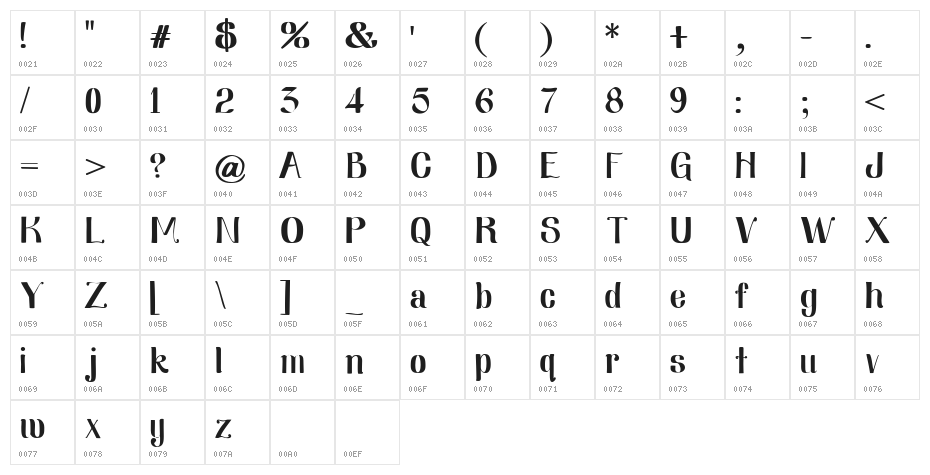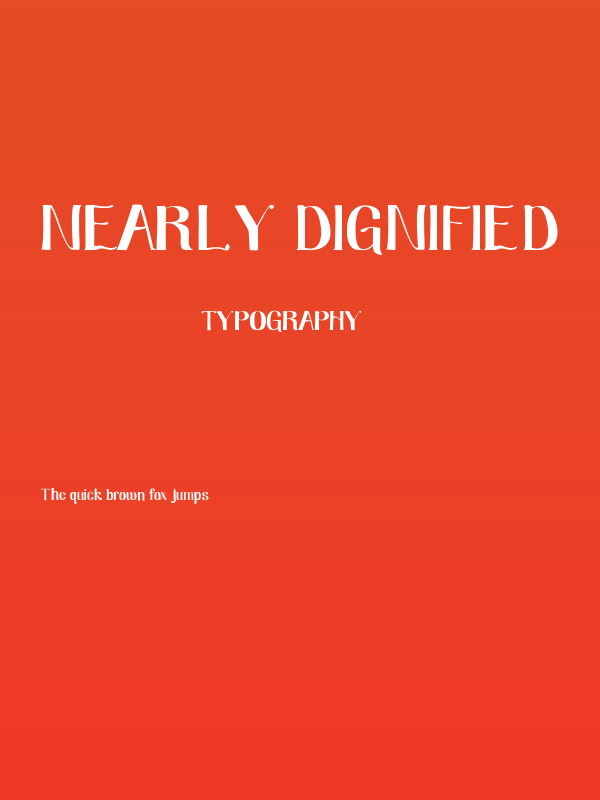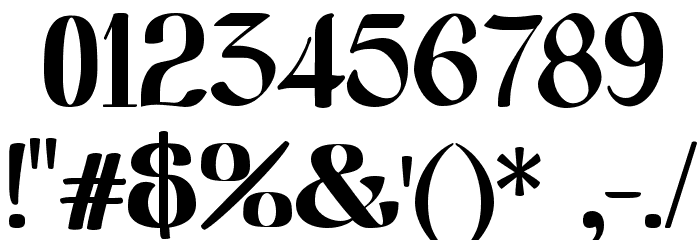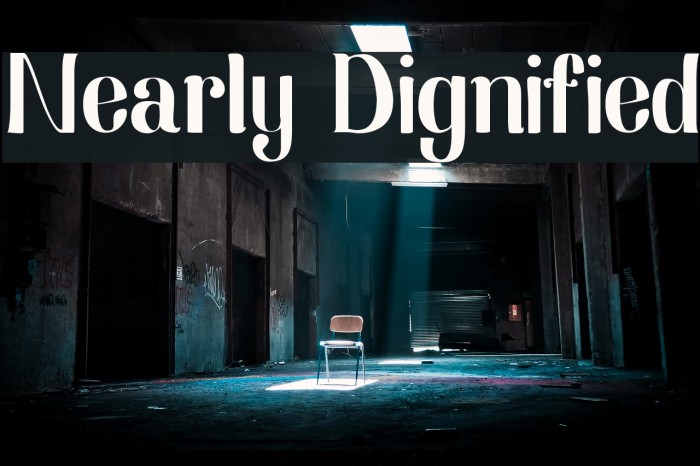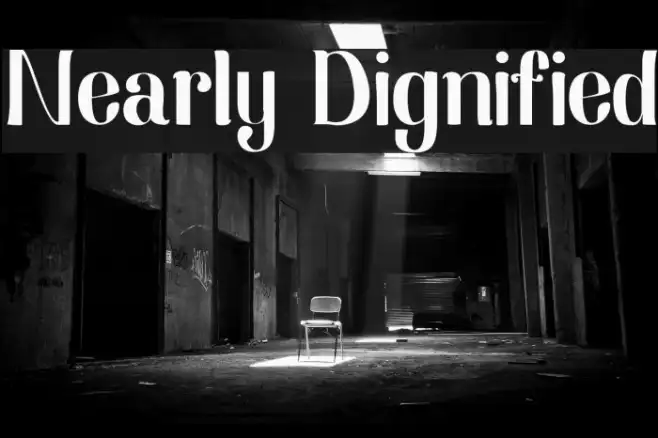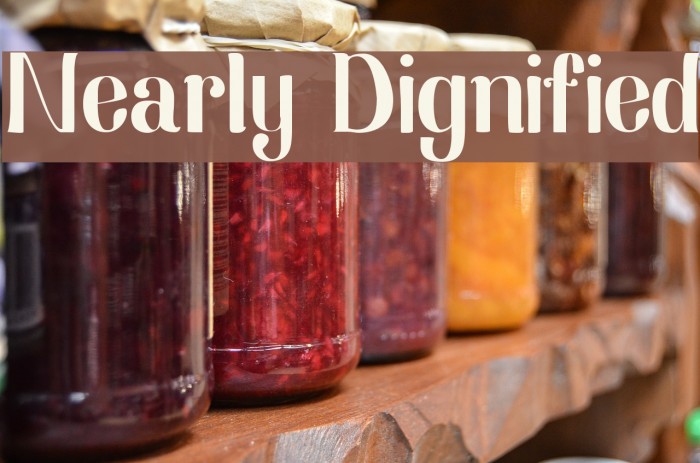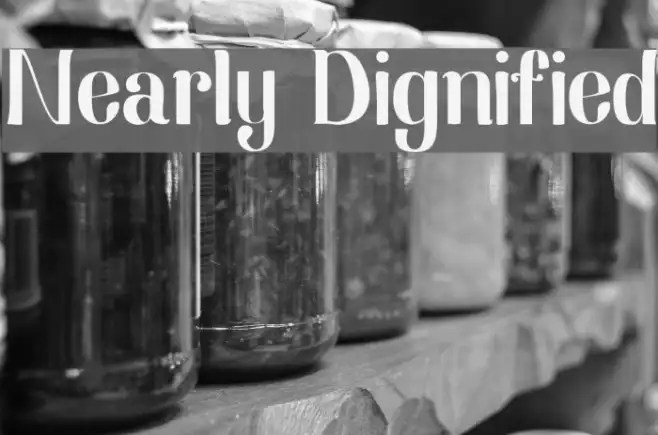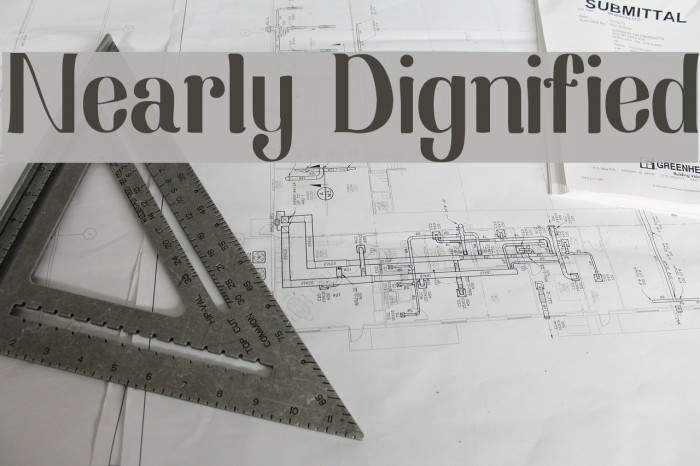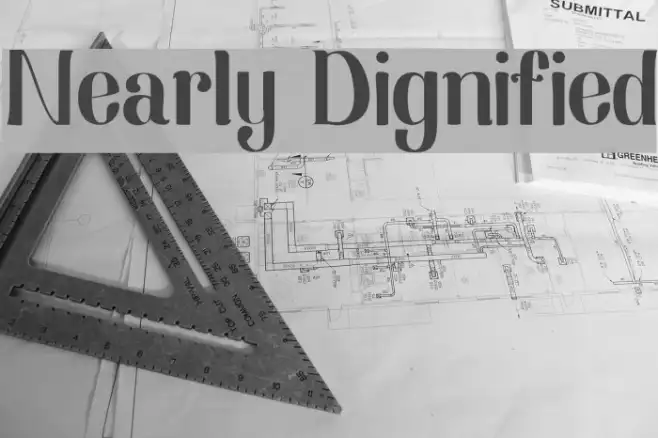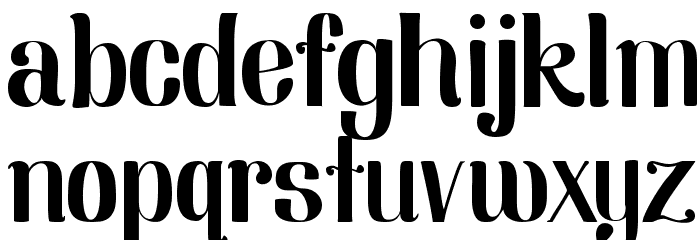
Nearly Dignified Font
Nearly Dignified Description
This font features a bold and playful design with a unique blend of modern and vintage elements. The uppercase letters exhibit a strong presence with slightly exaggerated serifs and varying stroke widths, giving them a dynamic and eye-catching appearance. The lowercase letters maintain a consistent style, with rounded edges and a smooth flow that enhances readability. Numbers are bold and clear, making them suitable for various applications. Special characters are creatively designed, adding a touch of whimsy to the overall aesthetic. The font's distinct style makes it ideal for projects that require a bold statement while retaining a sense of elegance.
| Overall Style | Modern, Vintage |
| Proposed Projects | Ideal for branding, posters, headlines, and packaging design where a bold statement is needed. |